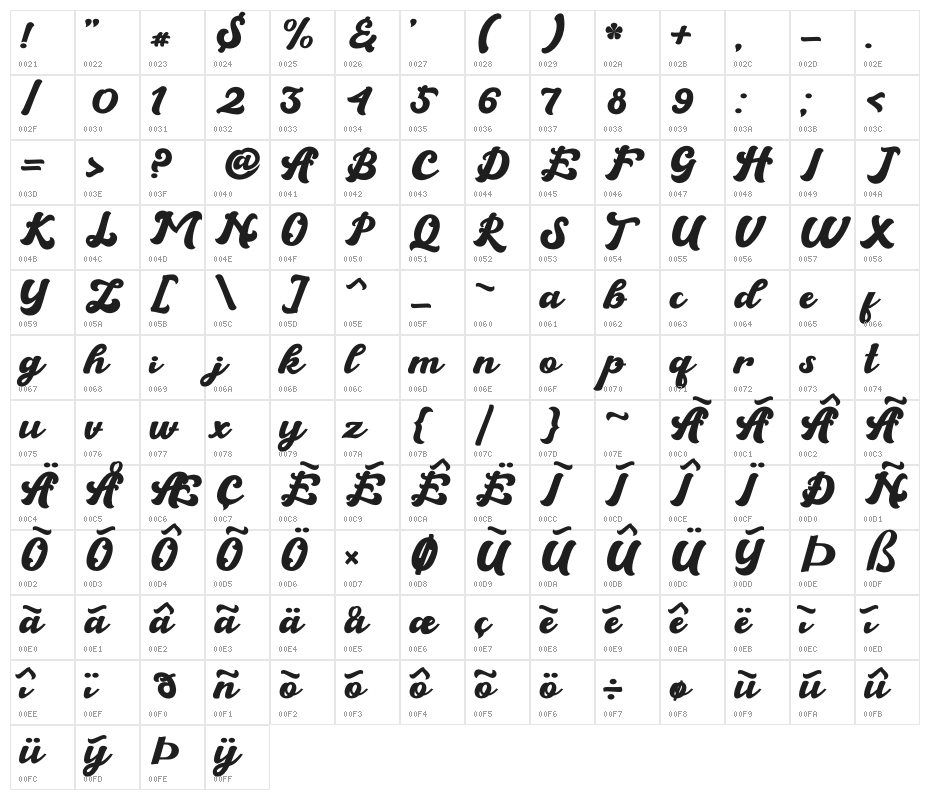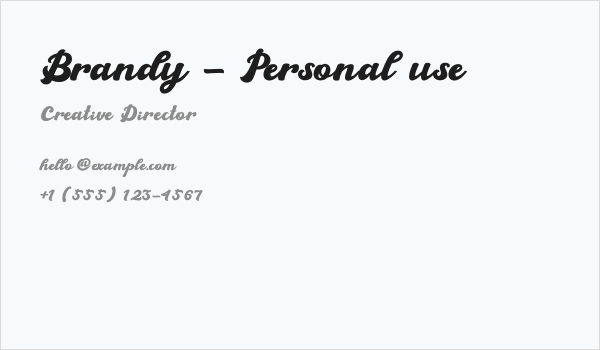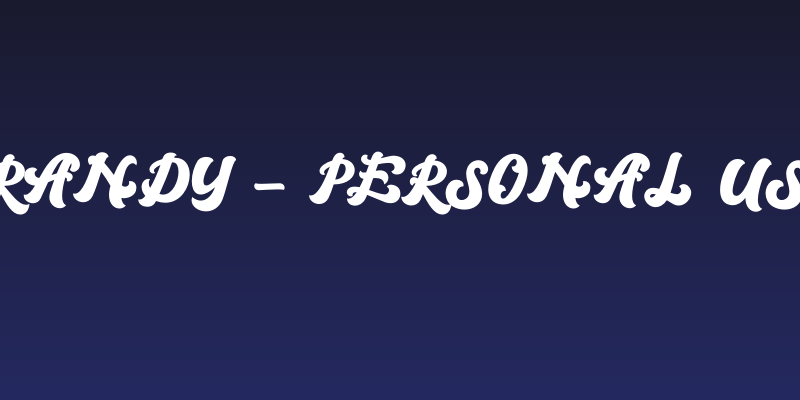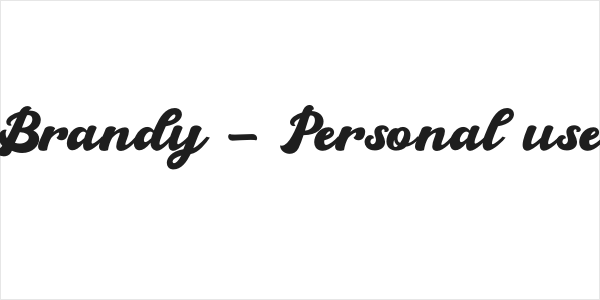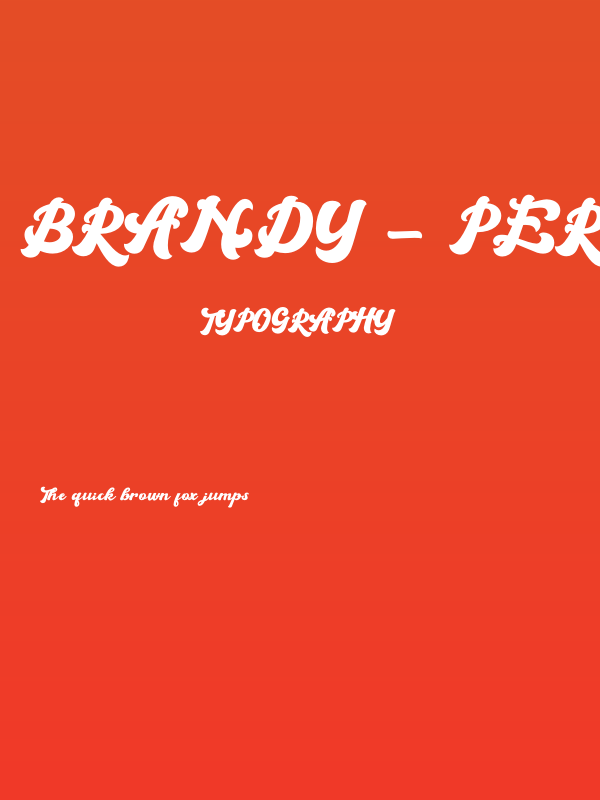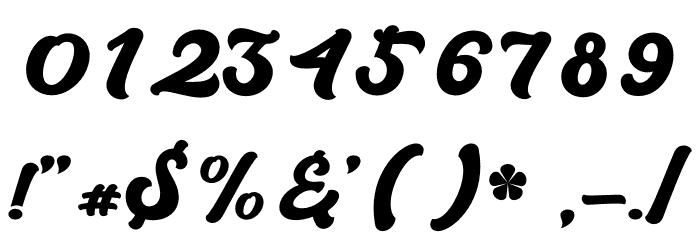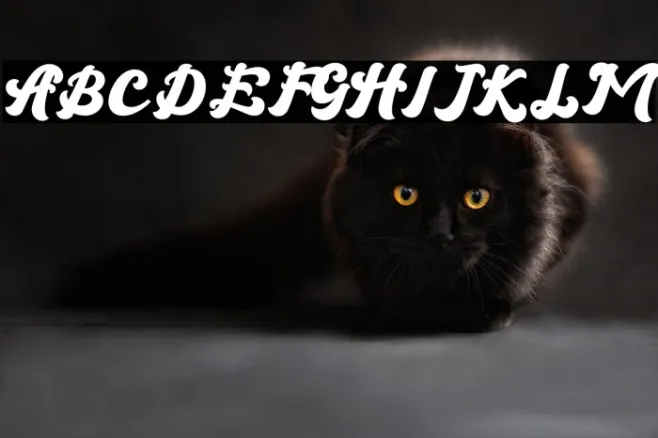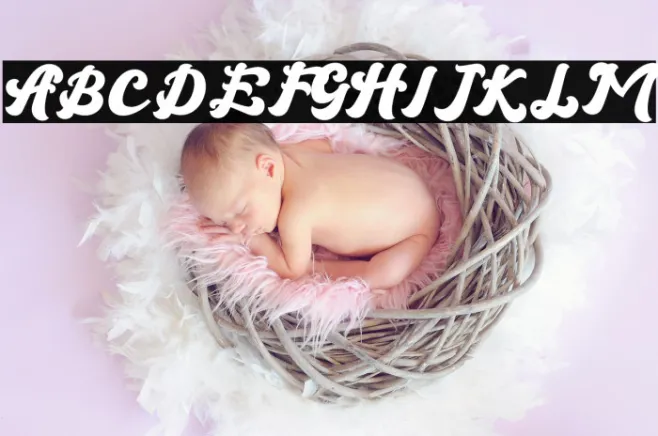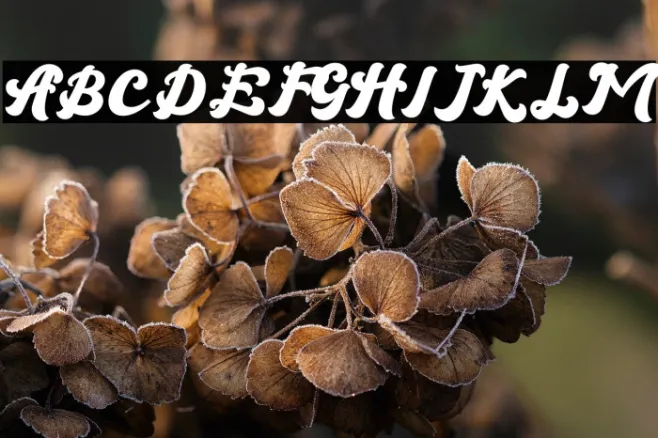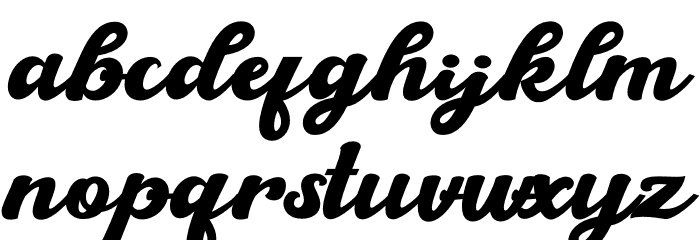
Brandy - Personal use Font
Brandy - Personal use Description
This font features a bold and flowing script style, characterized by its smooth, cursive letterforms that mimic the fluidity of handwriting. The uppercase letters are elegantly crafted with consistent loops and curves, while the lowercase letters maintain a harmonious balance with slightly exaggerated ascenders and descenders. The numerals and special characters are designed to complement the alphabet, maintaining the same bold and expressive style. This font exudes a sense of elegance and sophistication, making it suitable for projects that require a personal and artistic touch.